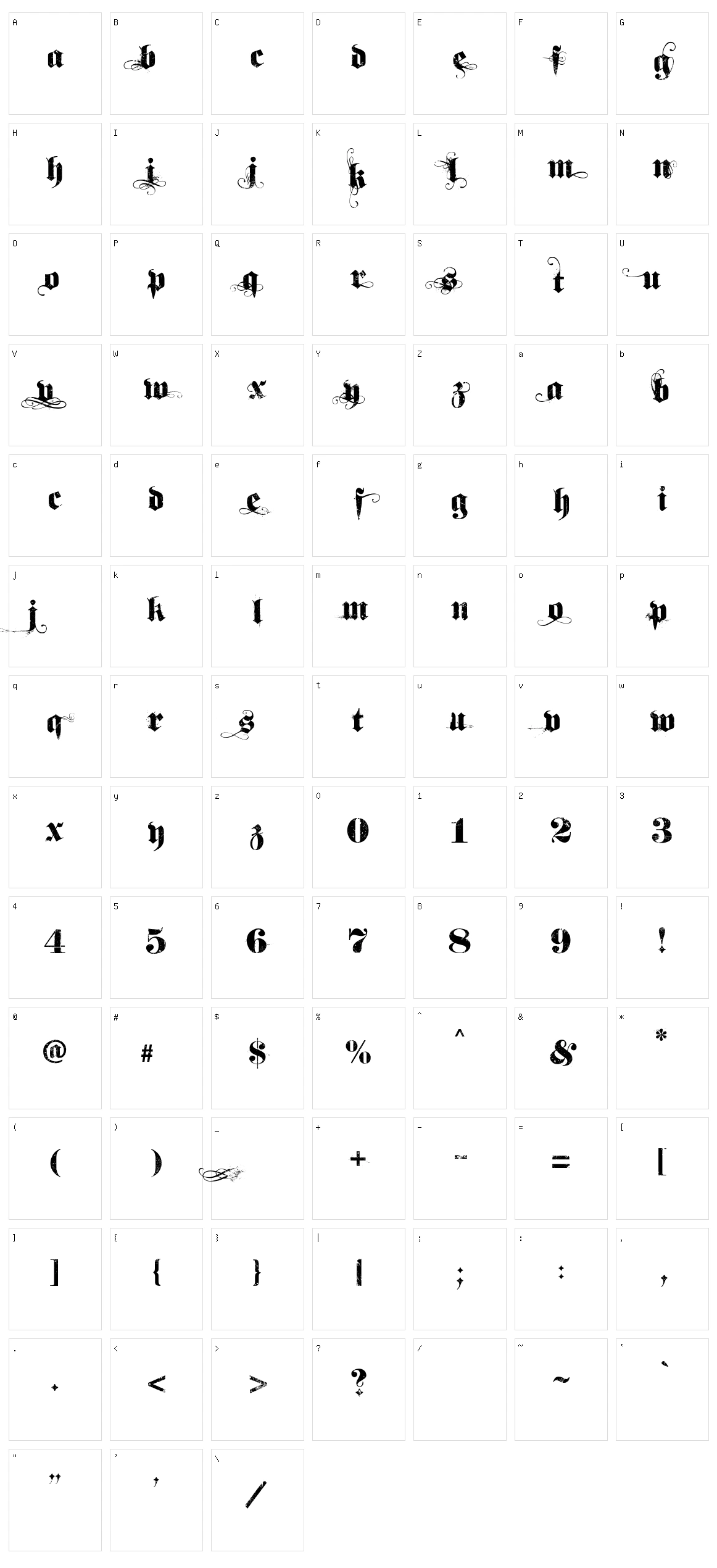
The free font Dirt2 SoulStalker is carefully designed by Dirt2.com - SickCapital, showcasing a thoughtful balance of creativity and usability and belongs to the Gothic font family. When you download the ZIP file, it contains only 335.27 KB of font files, making it lightweight and quick to download. Please review the license details below to understand permitted usage and distribution rights. If license information is not available, we recommend using this font for personal projects only or contacting the author directly for commercial usage permissions.